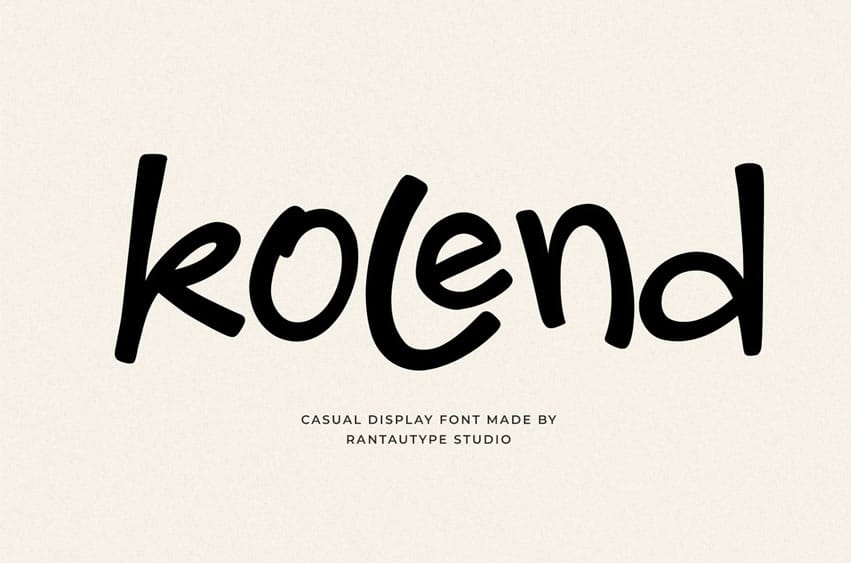
Kolend Font is casual display font with stylsih stroke font. Kolend come with modern and fun vibes.
Kolend is a perfectly choice for any creative endeavor, creating, modern, lifestyle design such as logotype, title, cover, branding, invitations, wedding designs, display and magazine, social media posts, advertisements, printed quotes, product packaging, corporate brand, product designs, labels, photography, watermarks, special events and any other project with modern touch.